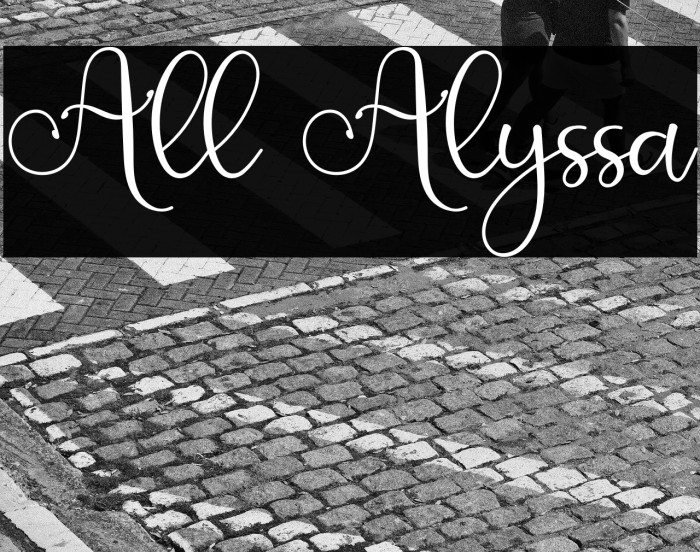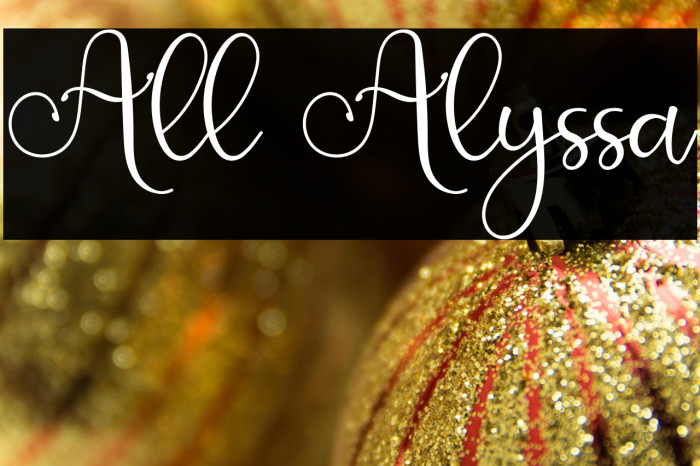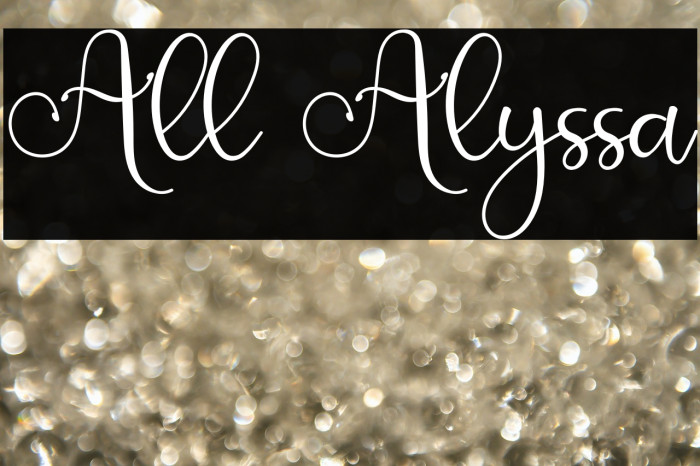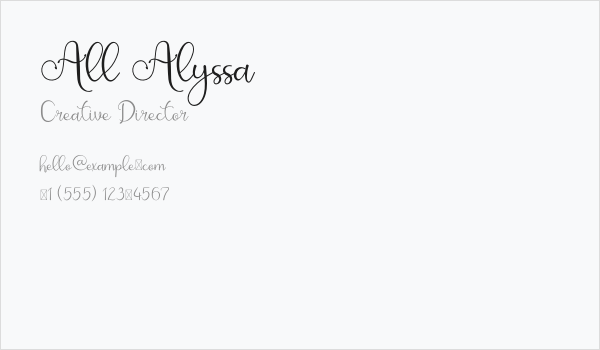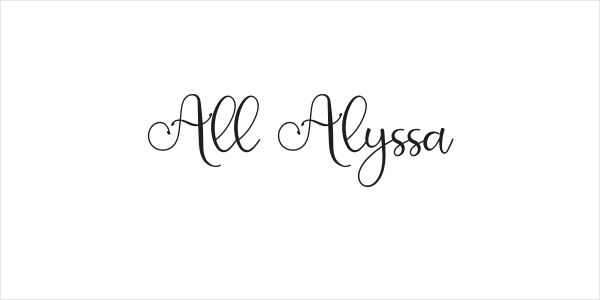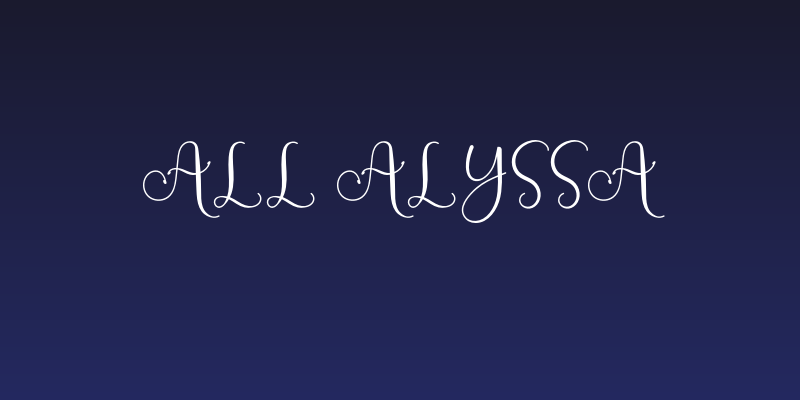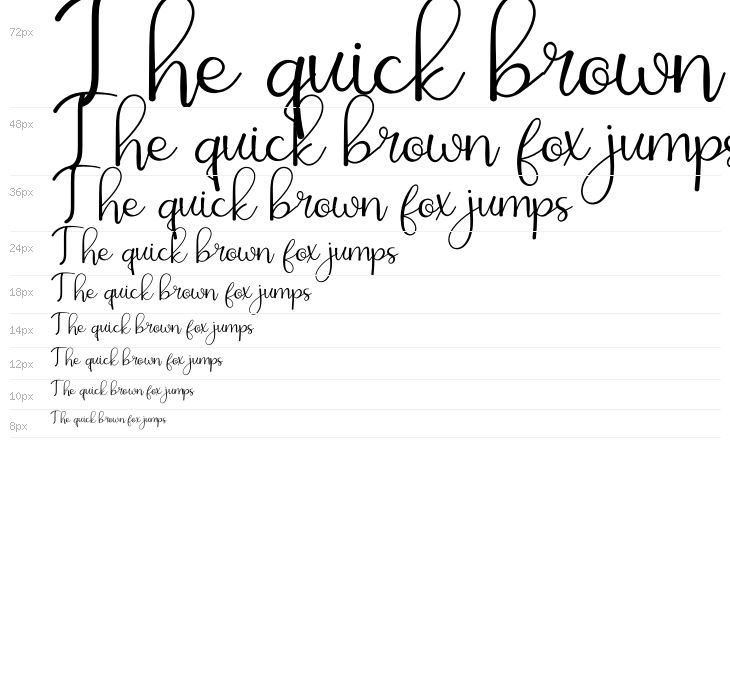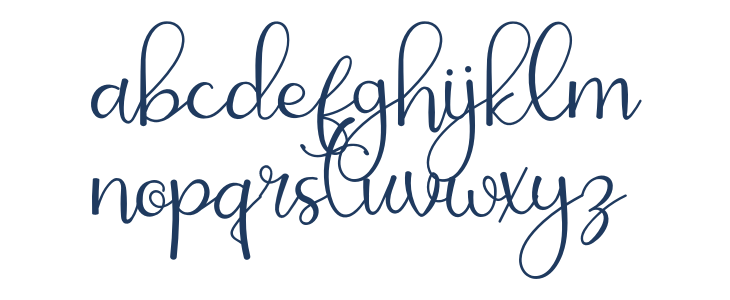
All Alyssa Font
All Alyssa Description
This font features a playful and elegant script style with a handwritten appearance. The uppercase letters are characterized by smooth, flowing lines and gentle curves, giving them a sophisticated yet approachable look. The lowercase letters maintain a consistent style, with some letters featuring loops and swashes that add a touch of whimsy. The numerals are clear and easy to read, maintaining the same fluidity as the letters. Special characters are designed to complement the overall aesthetic, ensuring a cohesive look across all text. This font is perfect for projects that require a personal touch, such as invitations, greeting cards, or branding materials.